hoosing the best fonts for logo design is essential for creating a memorable and effective brand identity. A logo isn’t just a visual symbol; it represents a brand’s personality, vision, and values. Typography plays a pivotal role in conveying that identity. In 2025, designers are focusing on modern, versatile fonts that allow brands to connect with their audience in a clear, engaging way. This article explores the best fonts for logo design, how they help brands communicate their essence, and why they are key to building a strong visual identity.
One of the top fonts for logo design is the Friez Logo Font. This bold, dynamic font brings strength and energy to any logo, making it perfect for industries like sports, entertainment, and technology. Its angular design gives a sharp, assertive look that communicates confidence and innovation. The versatility of Friez Logo Font is evident in its use across various digital platforms and merchandise. However, it may not be suitable for brands aiming for a more elegant or subtle identity due to its strong visual impact. While it excels in bold branding, its intensity could limit its use in designs that require a more understated feel.
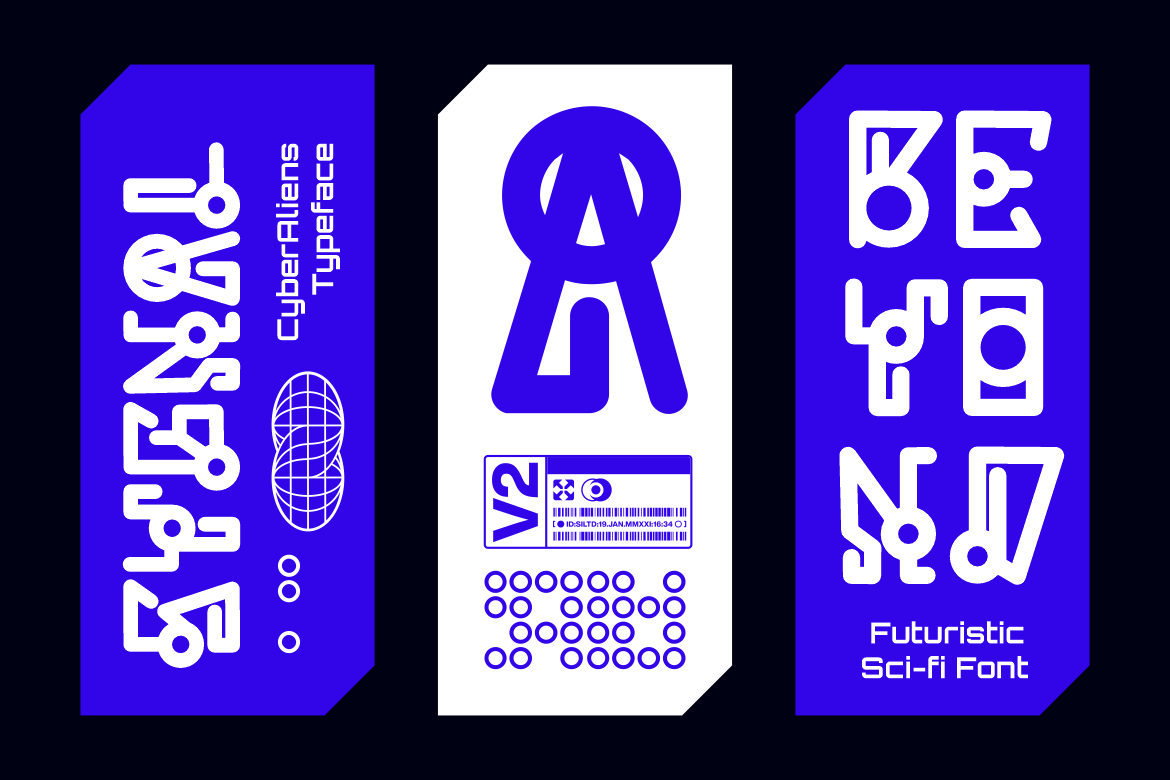
Cyber Aliens is a futuristic font designed for brands that want to evoke a tech-inspired or cyberpunk aesthetic. With its sharp edges and alien influences, this font is ideal for sci-fi games, tech startups, and anything that needs to communicate a sense of mystery or the unknown. The font’s high-tech look makes it perfect for video game logos or space-themed branding. However, Cyber Aliens may not work well for more traditional or formal brands due to its highly specialized style. If you want a logo that feels innovative and out of this world, this font will serve that purpose perfectly.
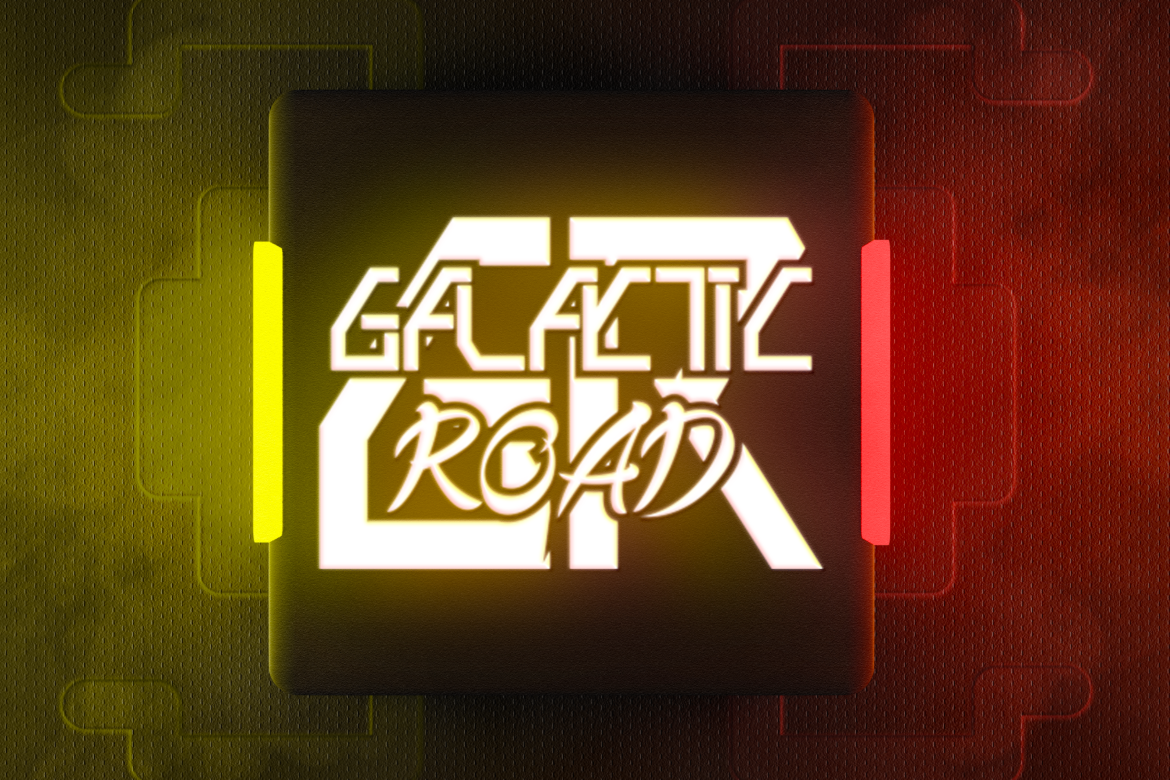
The Nebula Avenue Duo font blends techno and brush strokes, offering a perfect mix of futurism and creativity. This stylish duo font is great for companies in the entertainment or music industries that want a creative edge. It combines clean lines with expressive brush details, making it ideal for branding and advertisements that need to grab attention. While it works well in most cases, its dual style may be overwhelming if not balanced carefully, especially in logos with multiple typographic elements. Nevertheless, Nebula Avenue Duo is a strong contender for companies seeking a modern, yet artistic design.
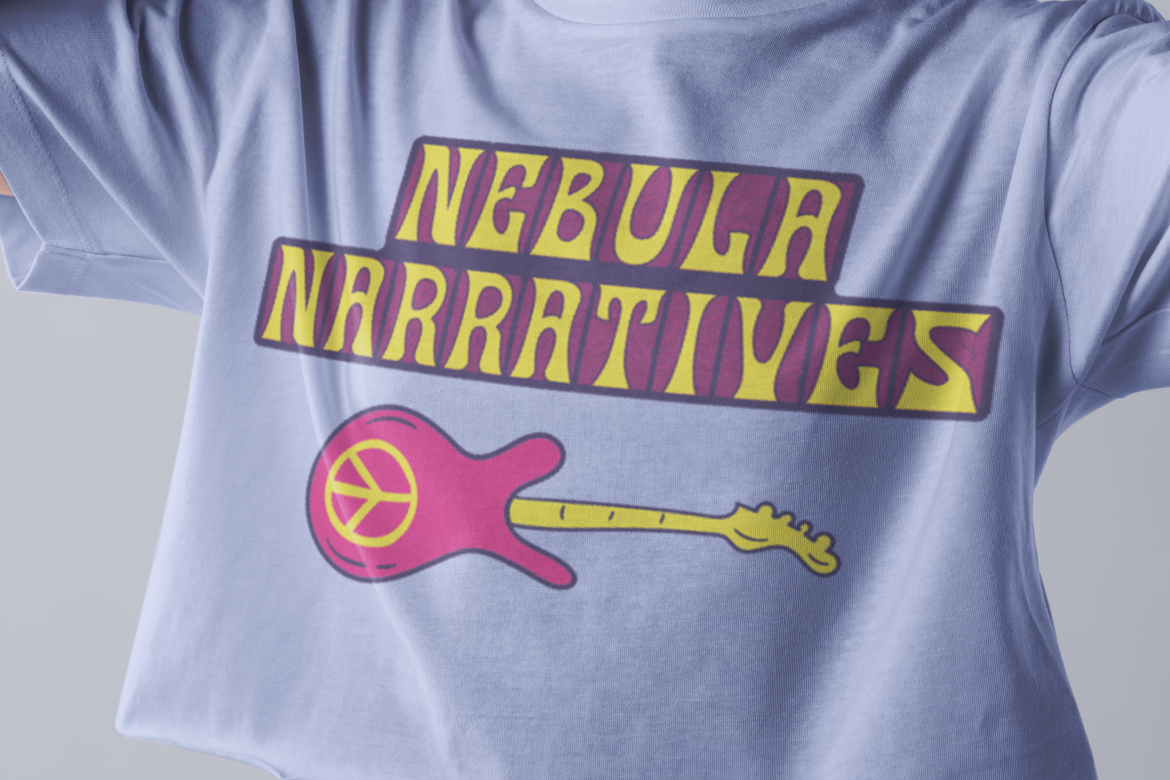
Spectrum Spiral is a retro wave font that brings boldness and vibrancy to logos. With its striking colors and energetic feel, this font is perfect for brands that want to evoke nostalgia and excitement. It’s a great choice for gaming, music, or youth-oriented brands looking to tap into retro aesthetics. The strong lines and spiral shapes make it stand out in both print and digital formats, ensuring your logo will catch attention. However, the retro style may not suit every brand, especially those with a more corporate or modern approach. It’s ideal for brands seeking a playful and memorable identity.
If you’re looking for a font that combines elegance and modern sophistication, look no further than the Greatness Culture Duo Font. This stylish duo font is a perfect blend of serif and sans-serif, offering versatility for both luxury and contemporary brands. It’s a great choice for high-end brands, fashion houses, or businesses aiming to project a premium image. The combination of fonts allows for creative flexibility, making it adaptable to various design needs. While the refined nature of the font may not be suitable for playful or casual brands, it excels in creating a polished and timeless identity for luxury businesses.
For brands in the sports or action industries, Magna Bold is an excellent choice. Its heavyweight, bold design exudes strength and confidence, making it perfect for sports logos and bold branding. Whether you’re working on sports team logos or fitness campaigns, Magna Bold brings an energetic and assertive presence to your branding. The downside is that this font may not work well for brands looking for a subtle, refined design. Its intensity may overpower more understated logos, but it’s an ideal choice for companies needing a logo that reflects power and dominance.
Eurolite is a clean and modern font designed for versatility. Its professional appeal makes it perfect for corporate logos, consulting firms, and creative agencies. This font is widely adaptable and works across a variety of branding needs, from websites to business cards. The simplicity of Eurolite ensures clarity and legibility, even in smaller sizes. However, its minimalist approach may not suit brands that need to project a bold or complex identity. It’s best used by companies that value a polished, professional appearance without the need for dramatic flair.
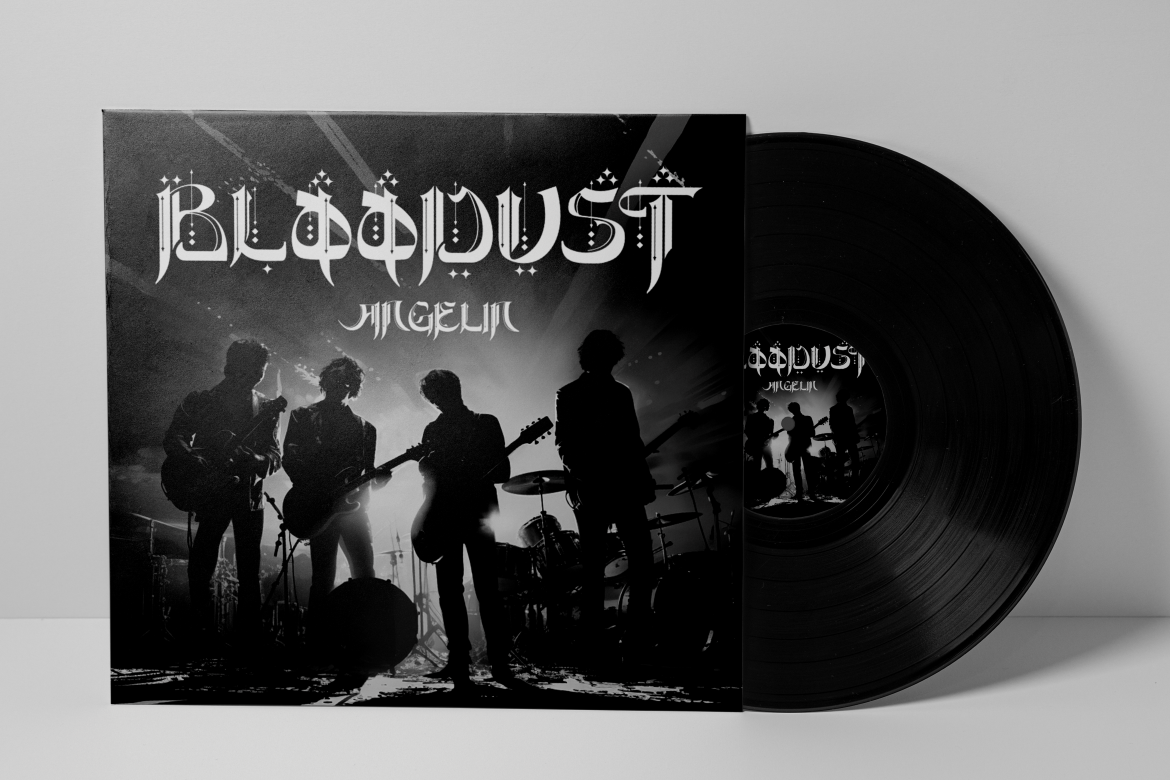
For brands wanting to incorporate tribal or cultural influences, Tribalizm offers a striking design that evokes heritage and authenticity. This font combines angular, tribal shapes with modern typography, making it perfect for brands in the art, fashion, or cultural industries. It speaks to tradition and history while maintaining a bold, modern look. However, the specific cultural theme of Tribalizm may not resonate with all brands, particularly those in mainstream or digital industries. It’s best used for businesses looking to evoke a sense of cultural depth.
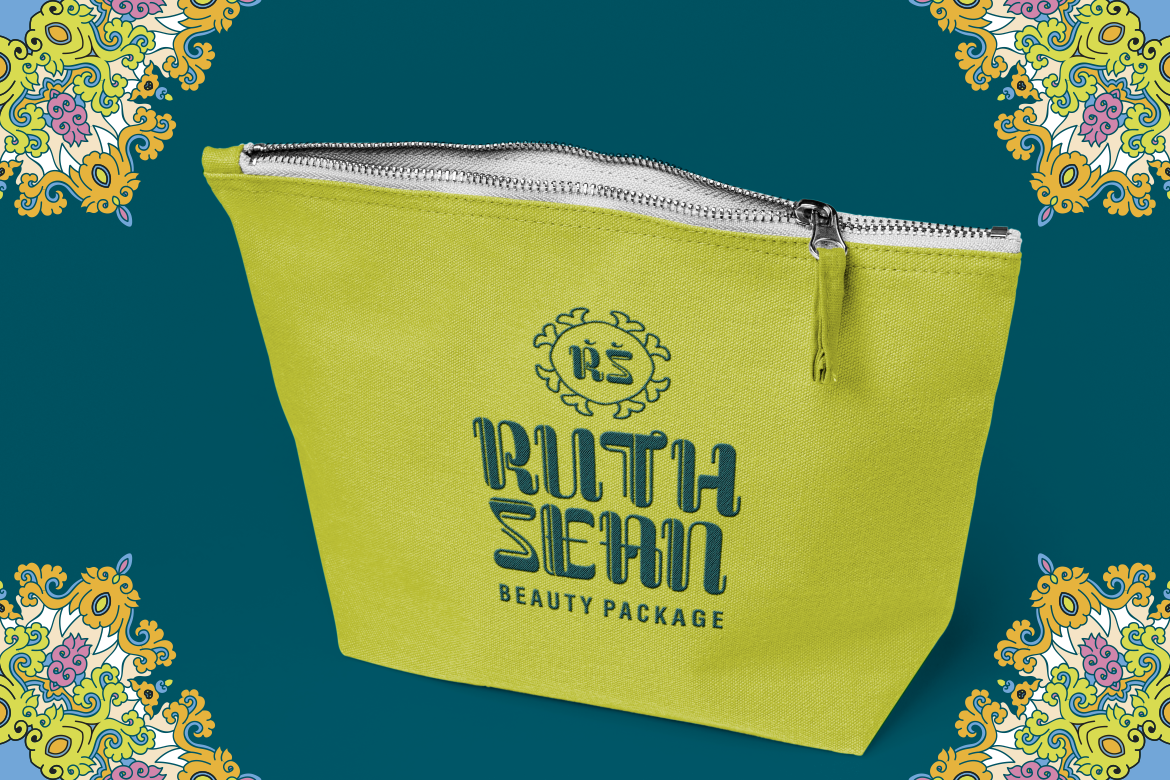
Batik Blend brings a touch of Javanese art to your logo design. The intricate patterns and fluid lines of this font make it perfect for businesses in the fashion or cultural sectors. It reflects the richness of Javanese culture and offers a unique look for brands that want to express authenticity and craftsmanship. However, its complexity might not suit every brand. It works best for businesses looking to communicate heritage and artisanal qualities. For more minimalist or modern brands, this font may feel overly detailed.